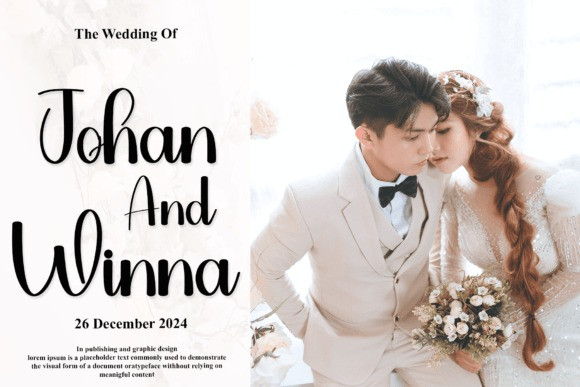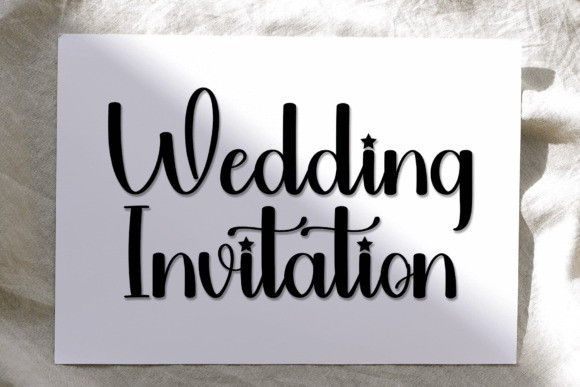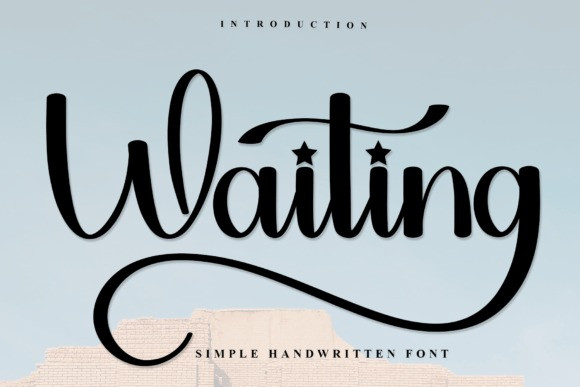
Waiting Handwriting Font
Waiting Handwriting Font is a graceful handwritten font characterized by fluid strokes and elegant curves. With its flowing rhythm and natural feel, Waiting exudes charm and sophistication. Ideal for wedding invitations, greeting cards, and branding, this font adds a touch of warmth and personality to any project with its stylish appeal.